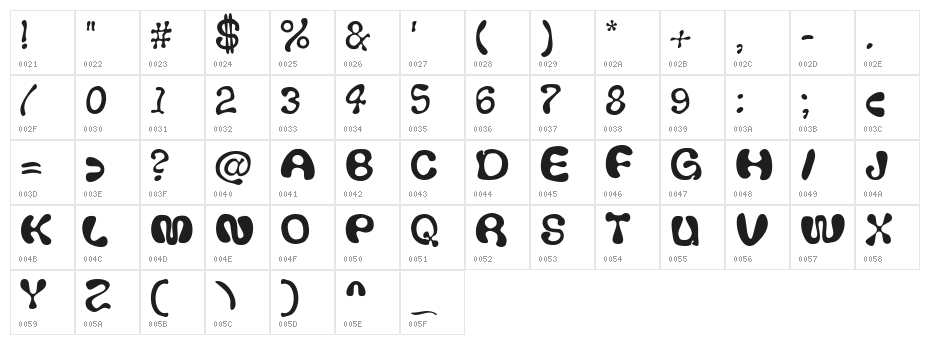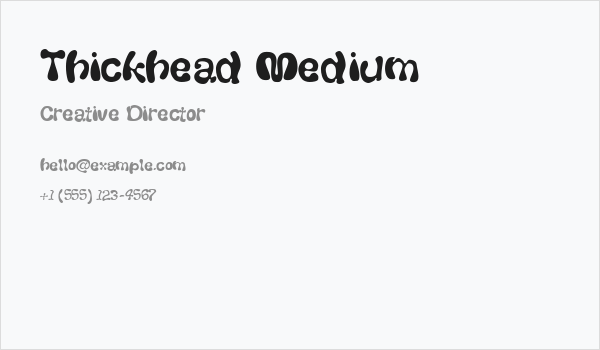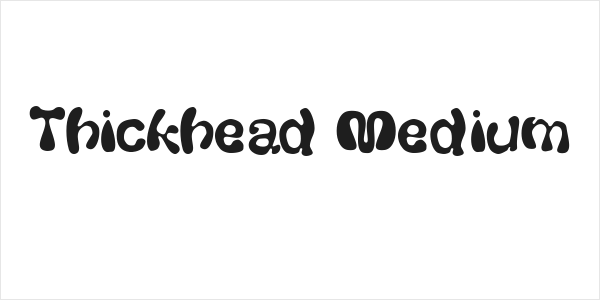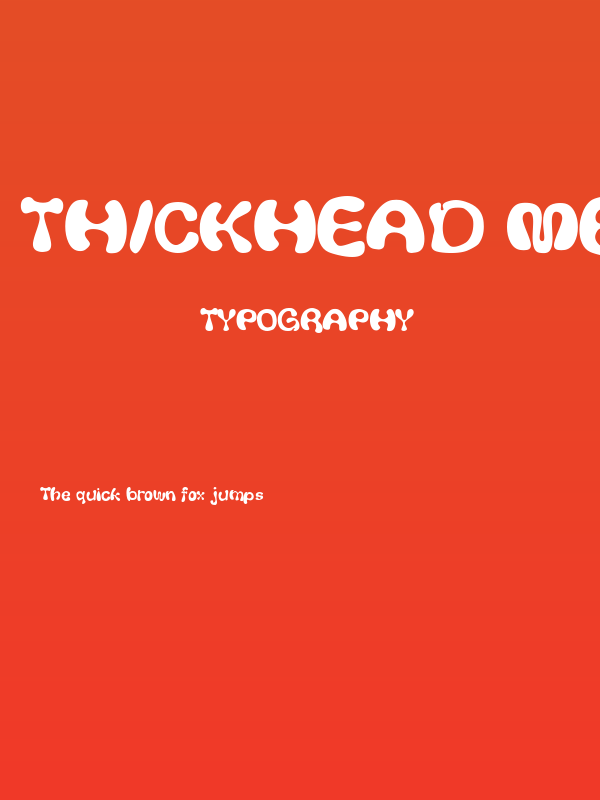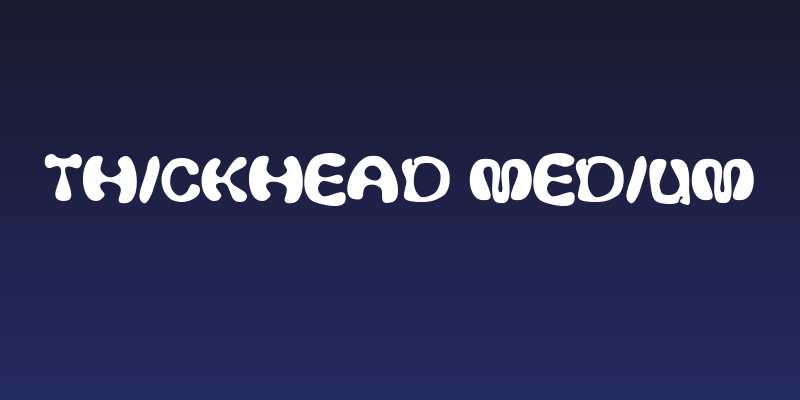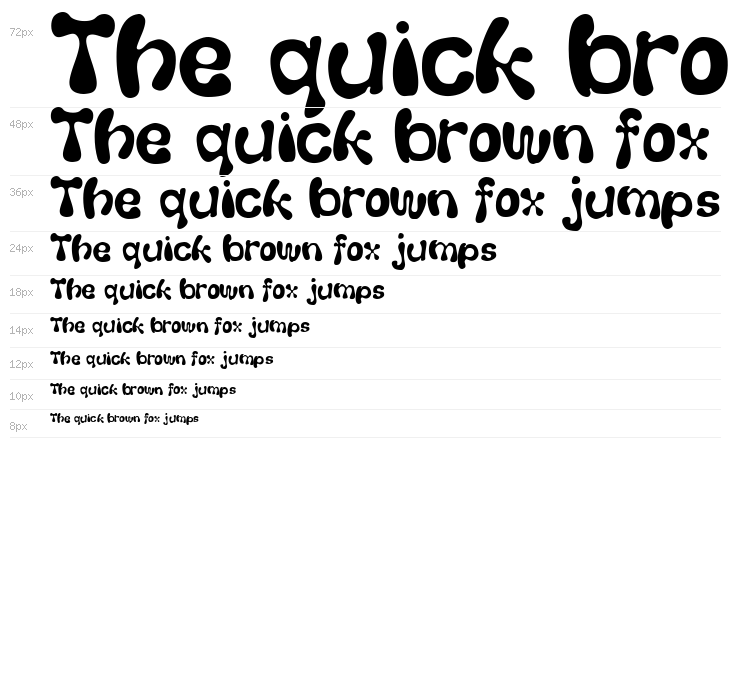
Thickhead Medium Font
Thickhead Medium Description
This font features a bold, playful style with thick, rounded strokes that give it a bubbly and whimsical appearance. The characters are highly stylized, with exaggerated curves and a sense of movement that makes them stand out. The uppercase and lowercase letters maintain a consistent weight, contributing to a cohesive look. The numbers and special characters follow the same design principles, ensuring uniformity across all glyphs. This font's unique personality makes it ideal for creative and informal applications.
| Proposed Projects | Ideal for children's books, playful branding, posters, and creative projects that require a fun and informal touch. |